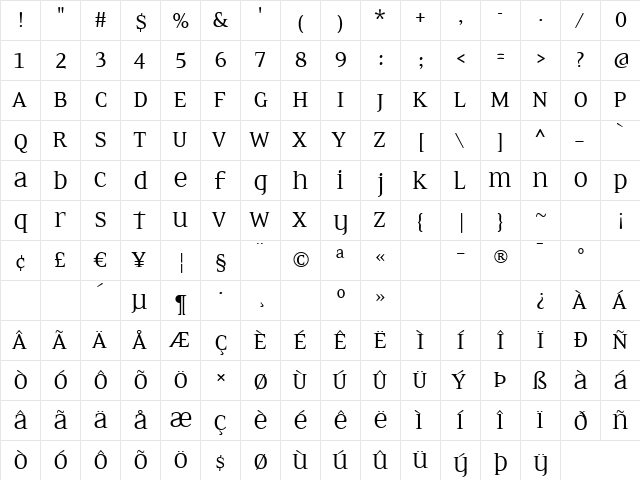
EideticNeoOmni Regular
| Foundry | Emigre Inc. |
| Designer | Rodrigo Cavazos |
Design Context for EideticNeoOmni Typeface
EideticNeoOmni takes a measured approach to typography — its balanced proportions and neutral character make it a reliable workhorse for both digital and print work.